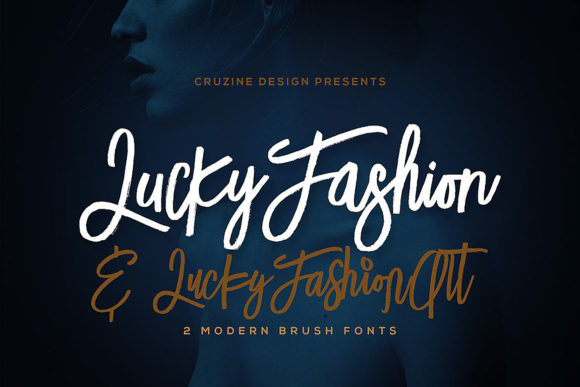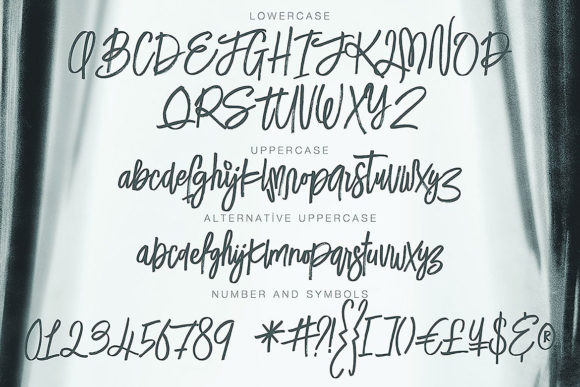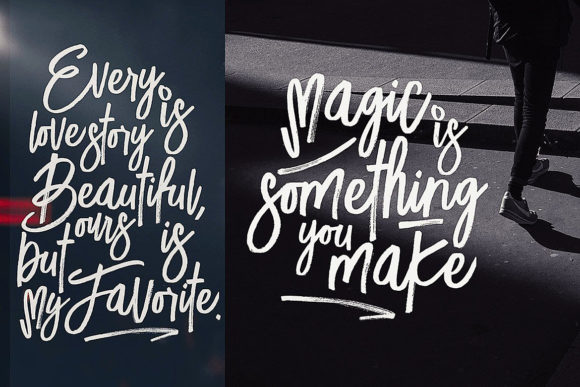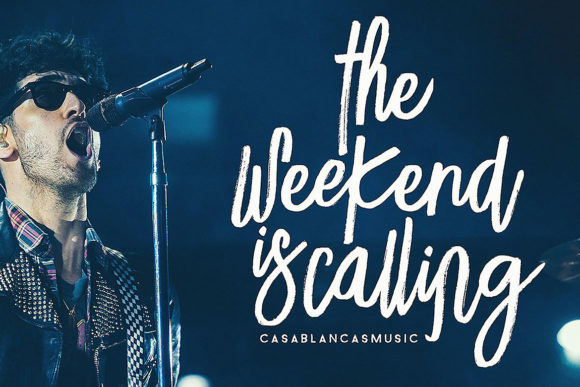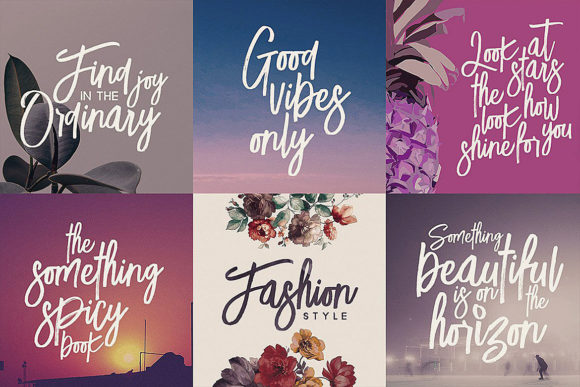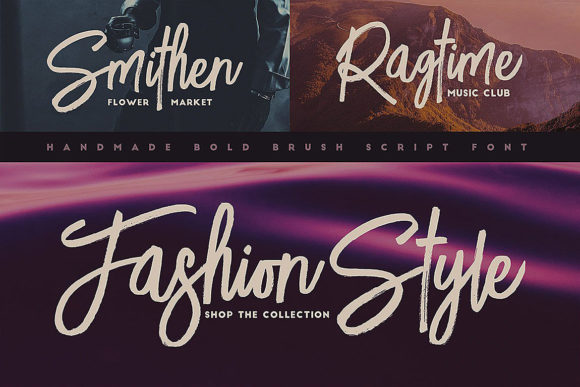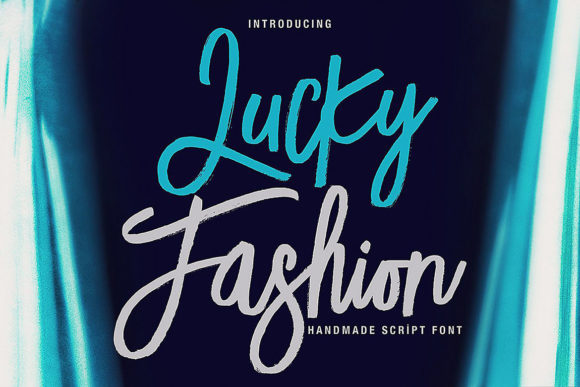
Lucky Fashion Font
About Lucky Fashion Font
The Lucky Fashion is a cool handwritten brush font. This display font comes in 2 variations with a dancing baseline, and is perfect for grunge and artistic projects.